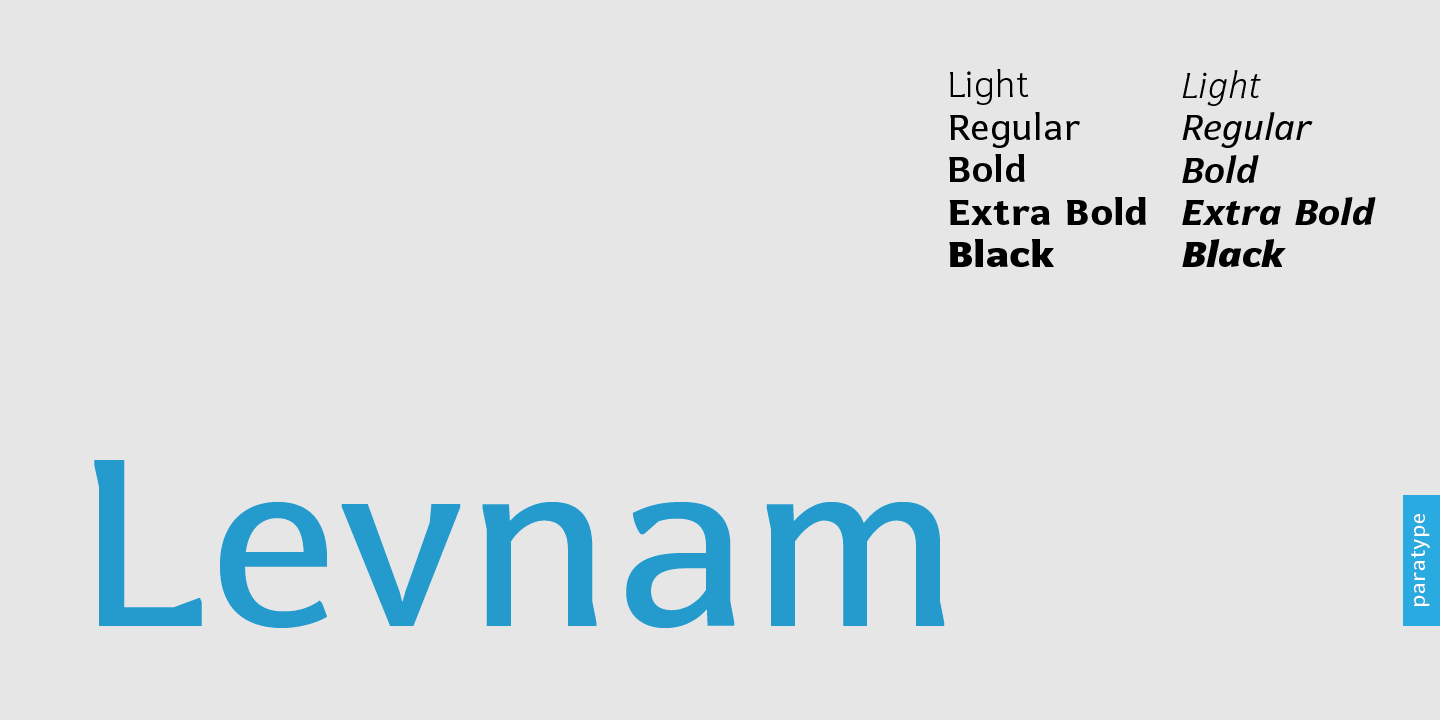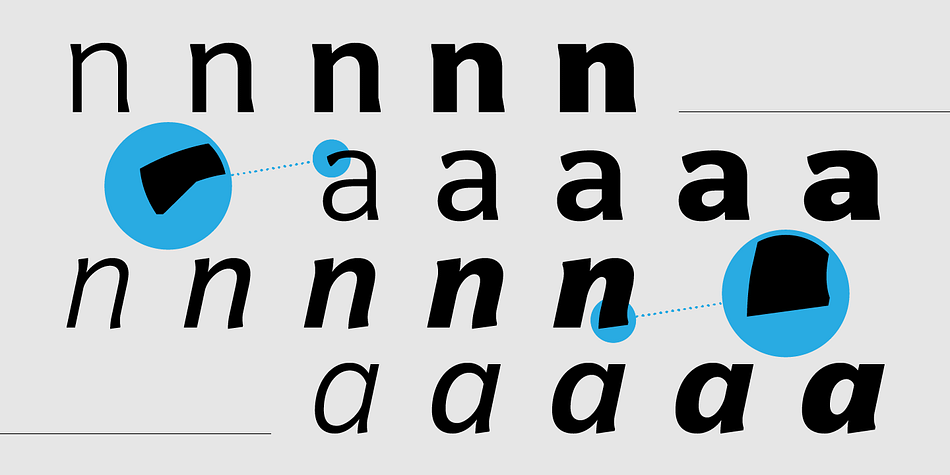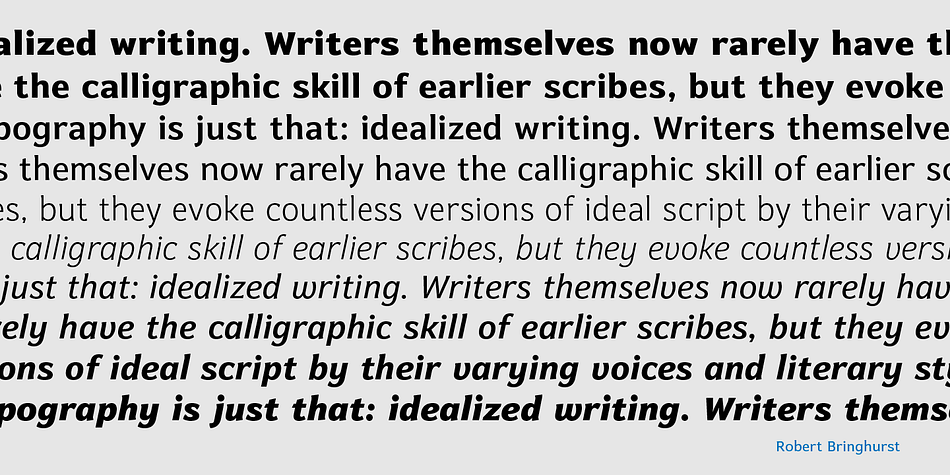
Designed by Manvel Shmavonyan, Levnam is a serif font family. This typeface has ten styles and was published by ParaType.
Levnam is a sans-serif family with quite wide proportions, slightly thickened terminals and wide sidebearings. The font is well suitable for setting text in small point sizes, similar to Bell Centennial or Verdana. Designed by Manvel Shmavonyan. Released by ParaType in 2015.
Designer | Manvel Shmavonyan |